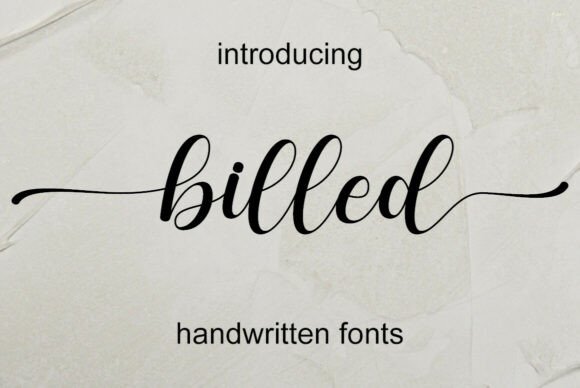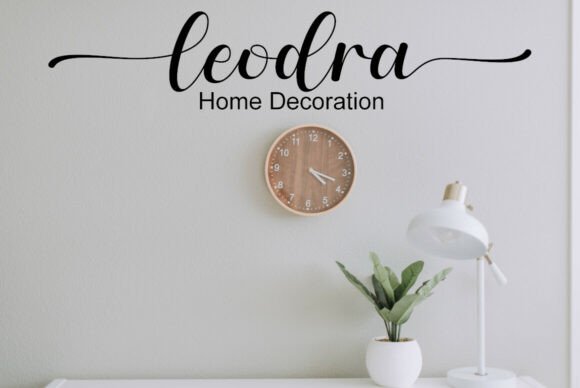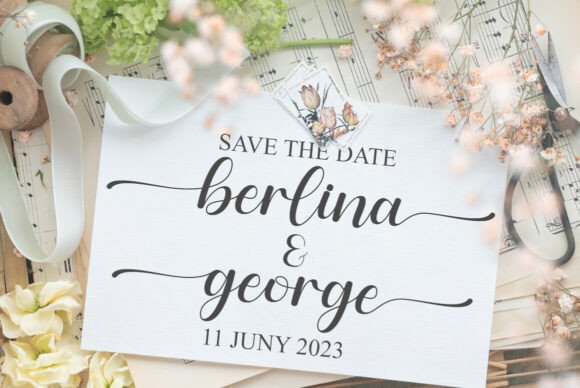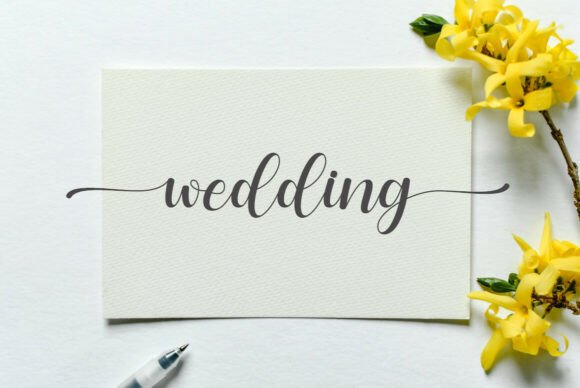
Billed Font: Elegant Handwritten Script for Wedding Invitations & Branding
About the Billed Font
Add a touch of class to your work with the Billed Font, a truly exceptional typeface. Billed is an elegant and delicate handwritten typeface. This is perfect for your various design needs, such as logos and branding, social media posts, advertisements, business cards, wedding invitation, product design, etc. This font is PUA encoded which means you can access all of the glyphs and alternates with ease!
Billed Font Usage Examples
Billed Font Example